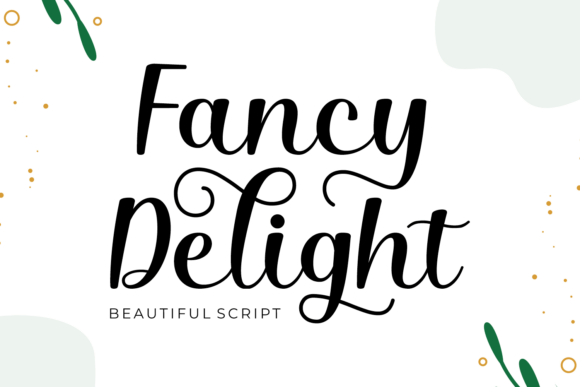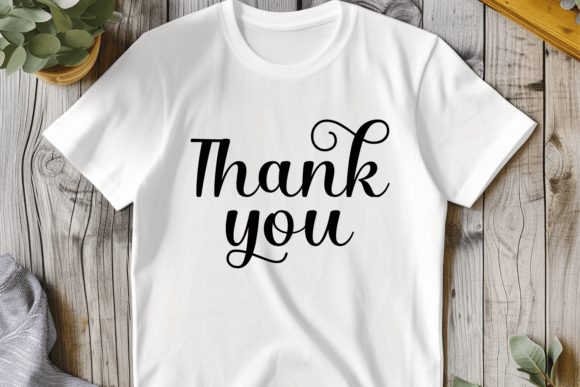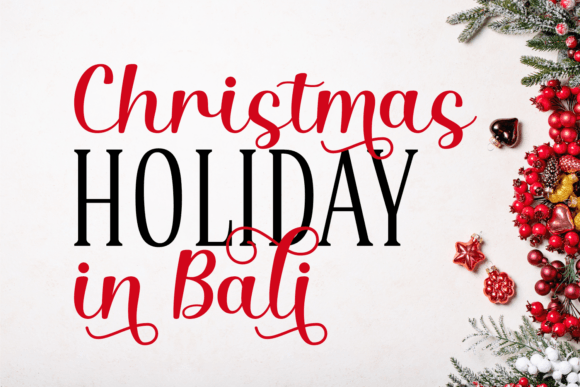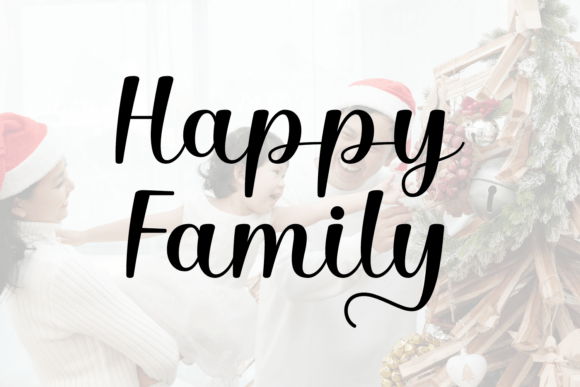
Fancy Delight Font
About the Fancy Delight Font
The Fancy Delight Font is here to transform your projects with its distinctive character and style. Fancy Delight is a beautiful script font that features elegant, flowing letters. Its stylish curves and soft lines give a lovely, artistic feel, making it perfect for invitations, greeting cards, and other creative designs. This font adds a touch of charm and grace to any text, making your words stand out beautifully.
Fancy Delight’s elegant curves are ideal for headlines, short text blocks on invitations or branding materials, and even packaging where a touch of sophistication is desired. However, its decorative nature makes it unsuitable for body text or UI elements; legibility suffers in long passages.
The font’s personality is undeniably elegant and graceful, lending itself well to projects requiring a touch of charm and femininity, such as wedding stationery or luxury product branding. Avoid using it for anything requiring high readability or a modern, minimalist aesthetic.
Pairing Fancy Delight effectively requires a contrasting but complementary typeface. A clean sans-serif like Lato or Open Sans would provide a strong counterpoint, enhancing readability when used for supporting text. For a more traditional feel, a simple serif like Garamond could also work well.
Fancy Delight Font Usage Examples
Fancy Delight Font Example